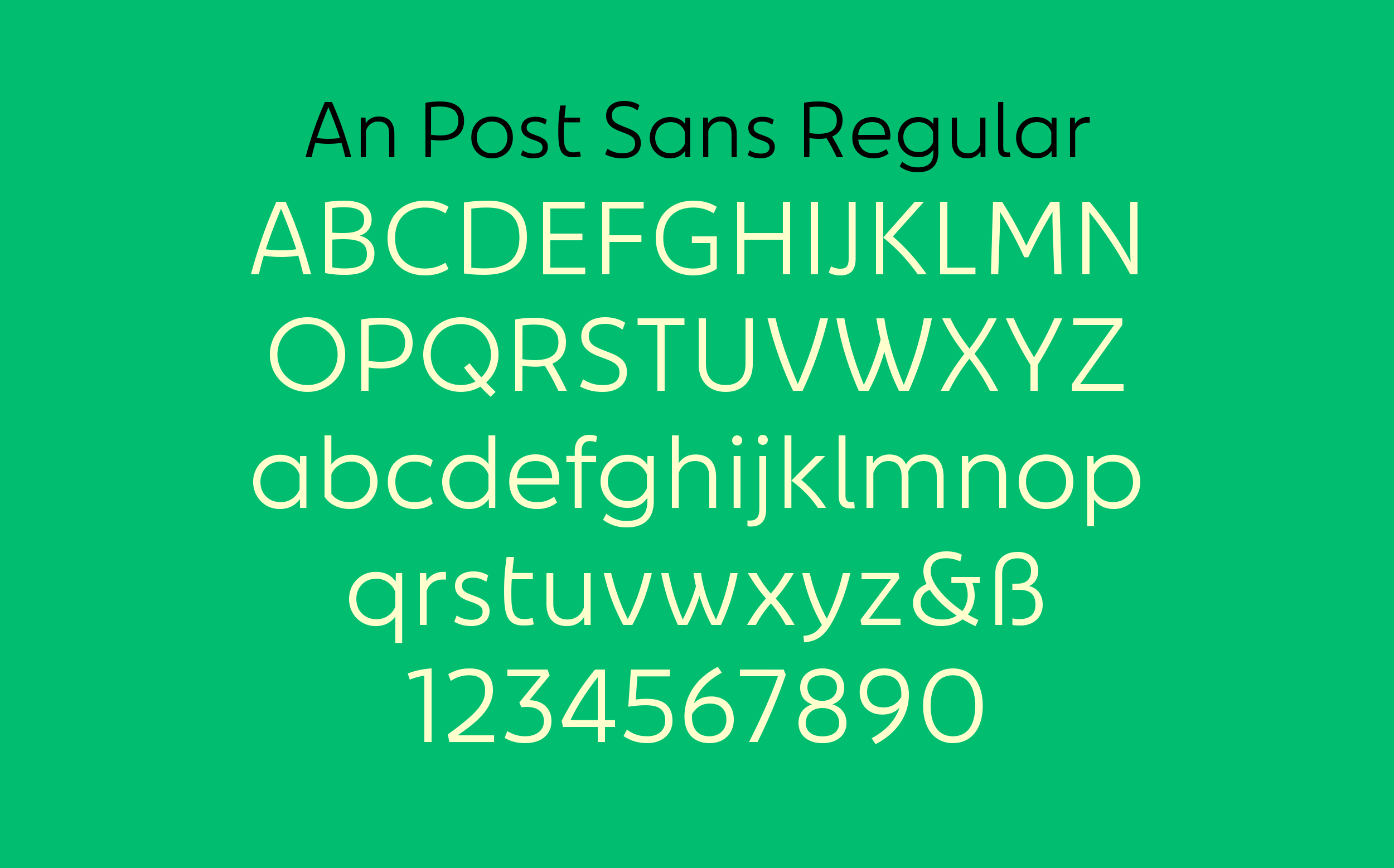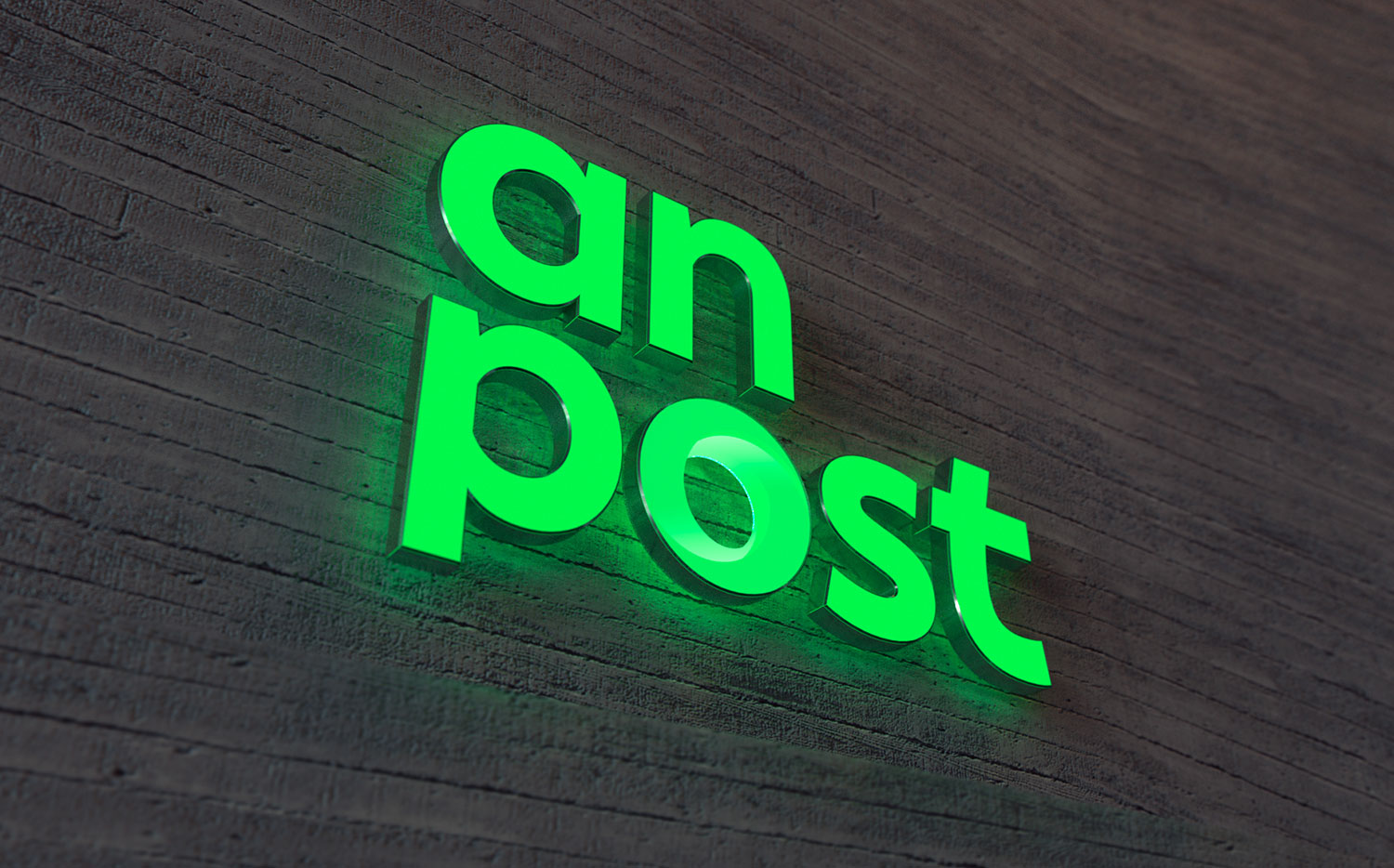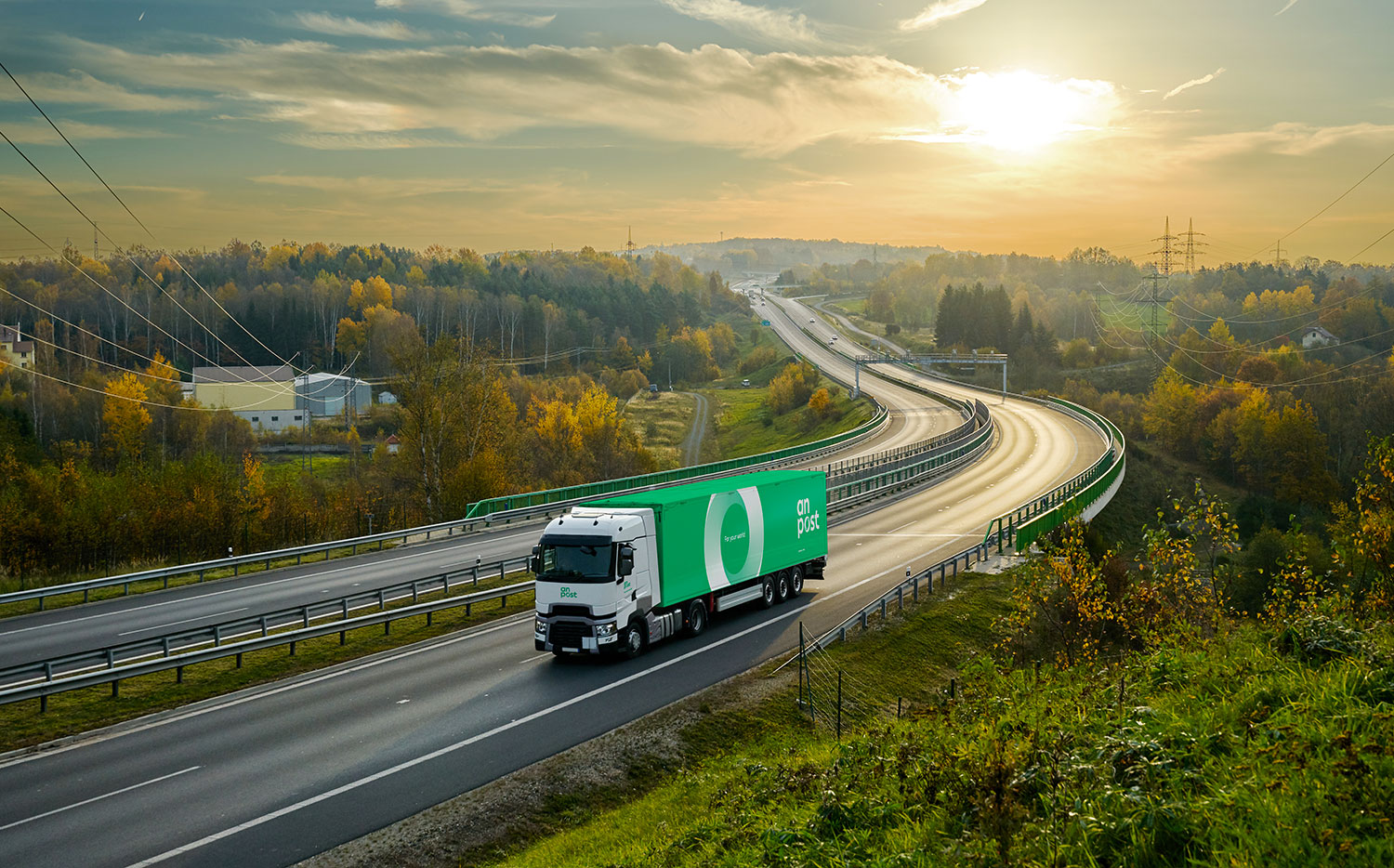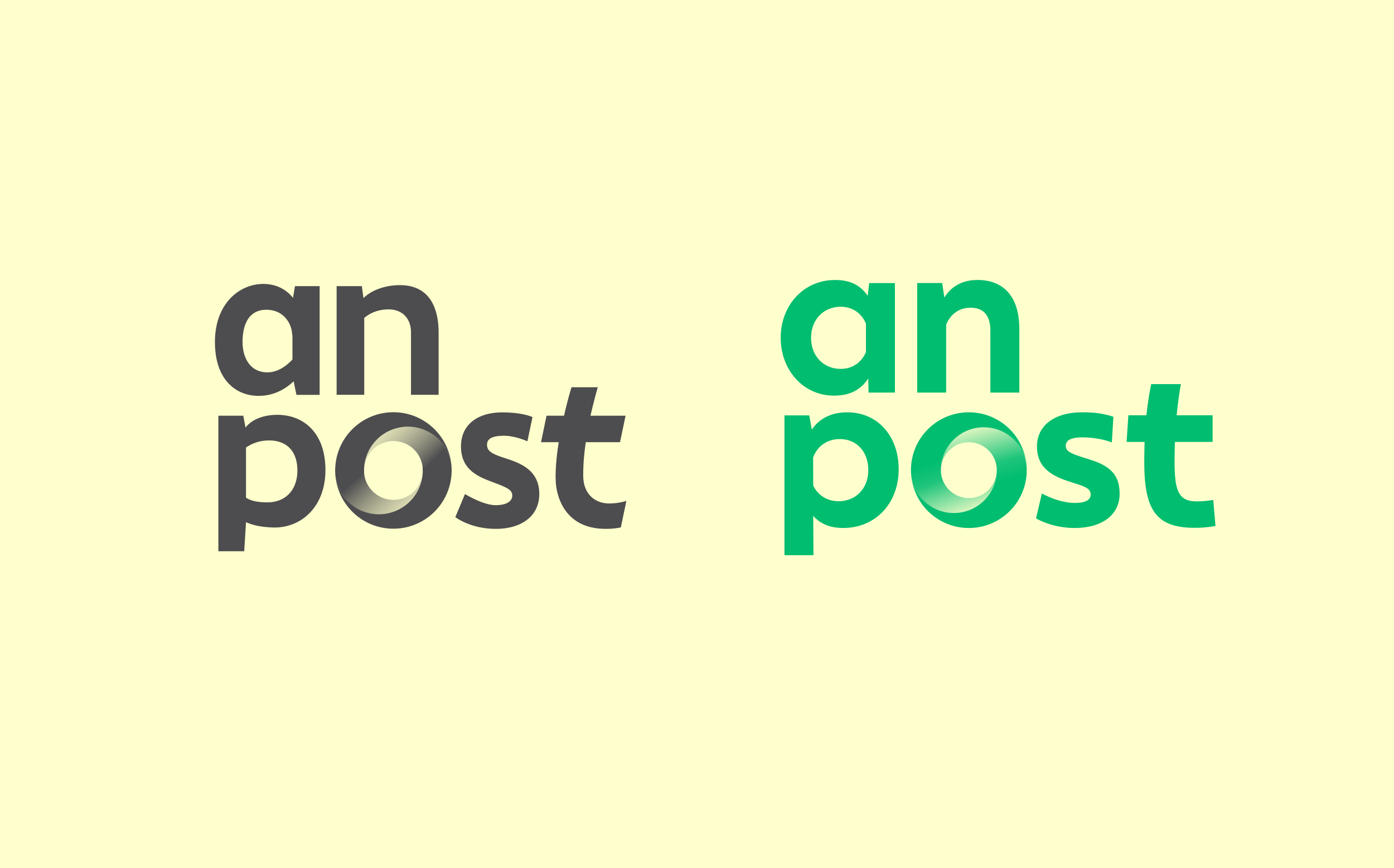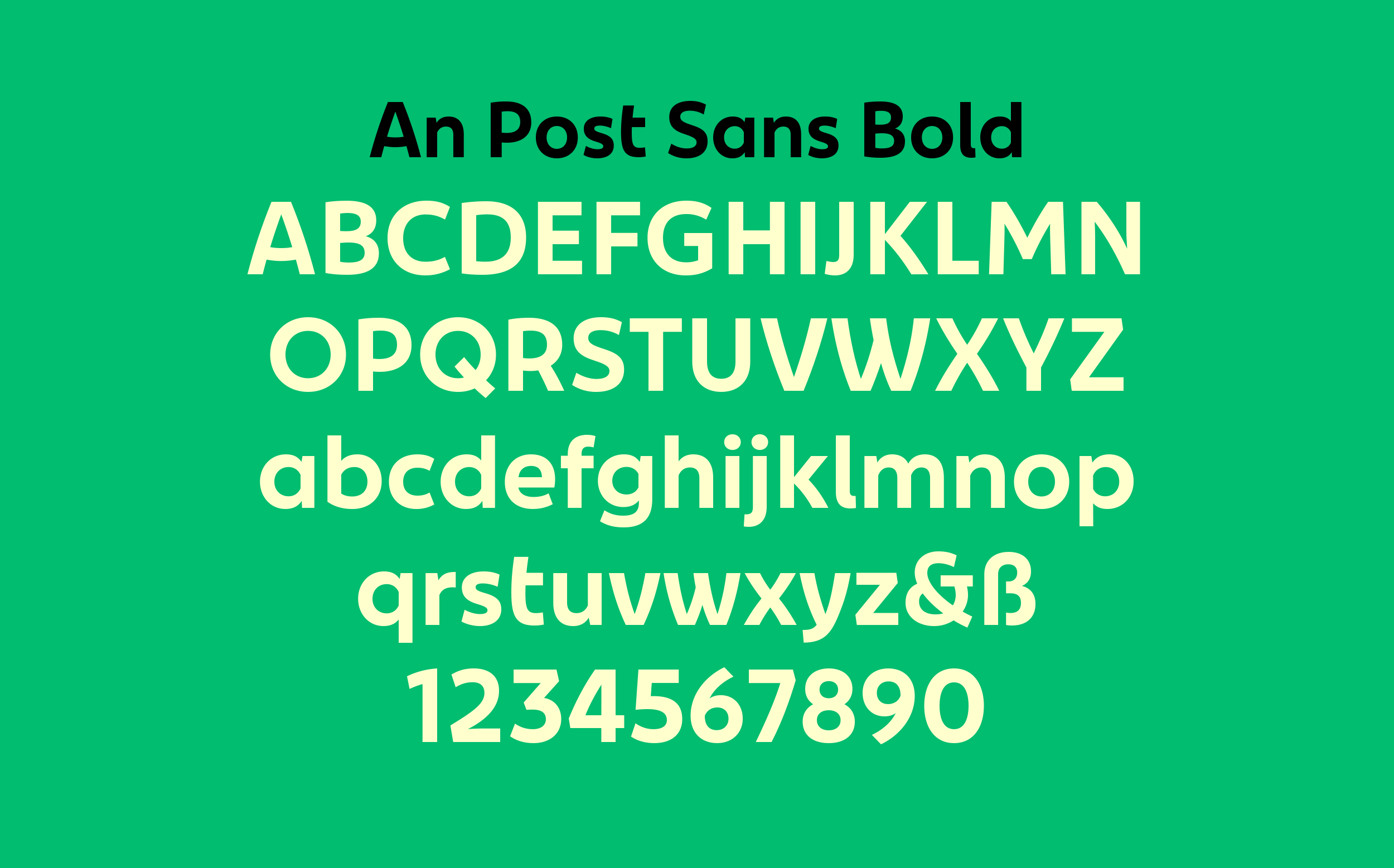
An Post
After years of increasing pressure from international couriers, Ireland’s postal service knew it had to make changes. They bought a fleet of zero-emissions electric vans, created two new sub-brands to foreground their financial and B2B offerings, and engaged Image Now to conduct a full rebrand to reflect the new An Post. We helped craft their new wordmark and expanded it into a two-weight proprietary typeface, a geometric sans “with an Irish lilt” that serves to unify all An Post’s online, print, and environmental communications across all touchpoints. The following year, An Post booked their first profit in well over a decade. Branding, website, print collateral, and vehicle livery by Image Now.